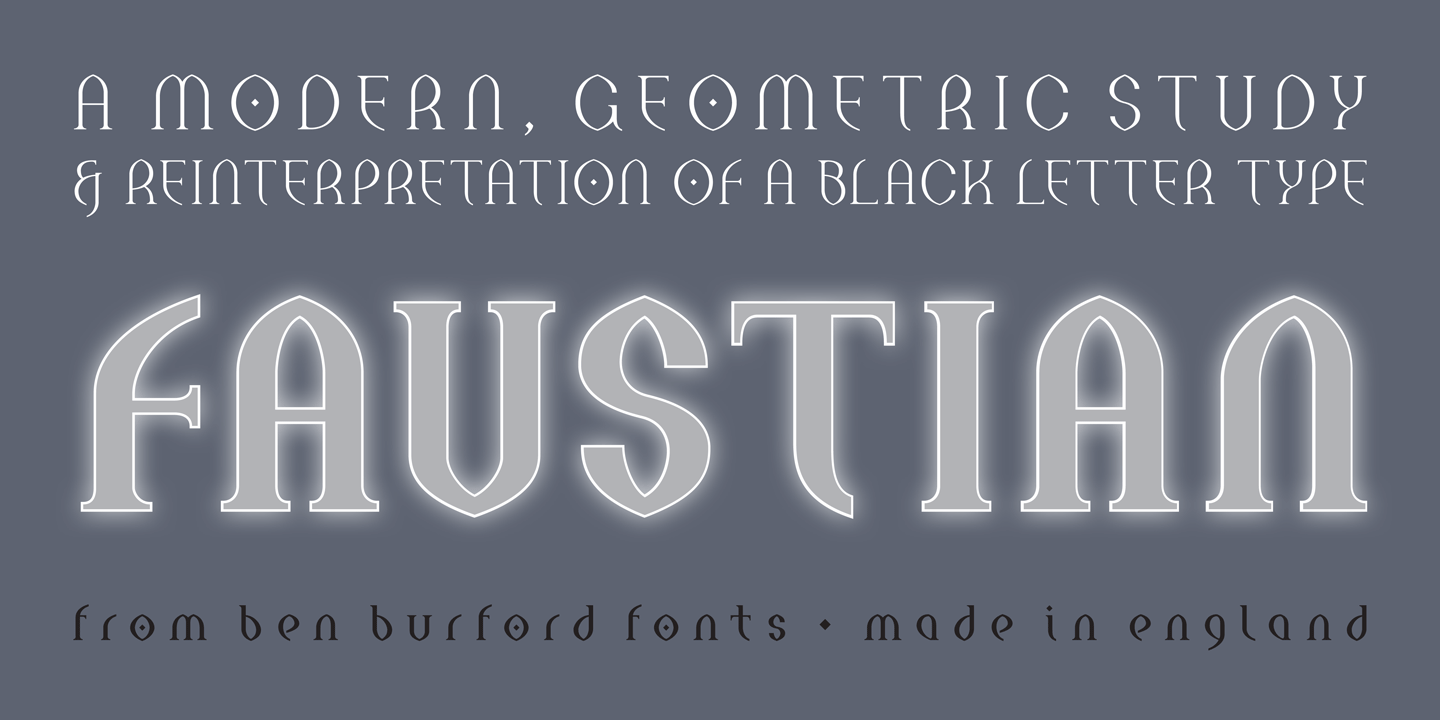
Faustian Font is perfect for gothic literature publications, classical drama theater branding, philosophical society communications, academic medieval studies materials, literary criticism journal layouts, renaissance studies presentations, gothic revival architecture firm graphics, classical mythology educational resources, philosophical debate society signage, and distinguished intellectual pursuit marketing campaigns.
What makes Faustian Font so exciting is its extraordinary ability to embody the profound intellectual ambition and moral complexity that defines humanity's eternal quest for knowledge through dramatically sculpted letterforms that seem forged in the fires of scholarly passion and tempered by the kind of intellectual courage required to pursue ultimate truth regardless of personal cost or conventional limitations. This font captures the essence of intellectual striving and philosophical inquiry, featuring boldly ambitious characters that appear designed to carry the weight of eternal questions and the promise of discovering profound truths that transform human understanding while acknowledging the moral complexities that accompany the pursuit of ultimate knowledge. The dramatically crafted letter shapes create an atmosphere of intellectual gravitas and philosophical authority, making every word feel like it participates in humanity's greatest debates about knowledge, morality, and the price of wisdom that challenges conventional boundaries and comfortable assumptions.
The Faustian Font family includes Light, Regular, Medium, Bold, and Dramatic variations, along with classical symbols and philosophical decorative elements. Each style maintains the font's distinctive intellectual character while offering versatility for different scholarly applications, from contemplative philosophical text to commanding academic headlines that announce breakthrough discoveries and intellectual achievements that advance human understanding.
This profound typeface brings authentic intellectual pursuit aesthetics to contemporary design projects. The Faustian Font Free Download provides designers with an exceptional tool to create memorable brand identities that communicate intellectual depth, scholarly ambition, and philosophical sophistication. Whether you're developing academic institution branding, designing literary publication materials, or creating philosophical society communications, this font delivers unmatched intellectual credibility and scholarly appeal.
The masterfully crafted letterforms in Faustian Font feature dramatic proportions and intellectual weight that mirror the ambitious scope of classical scholarship and the moral complexity that accompanies the pursuit of knowledge that challenges established boundaries while seeking truth that may exact personal costs from those brave enough to pursue it. Each character has been designed to maintain perfect readability while expressing the intellectual courage and philosophical depth that define authentic scholarly inquiry. The font's distinctive personality makes it ideal for applications requiring genuine academic authority and philosophical credibility.
Academic and intellectual professionals appreciate how Faustian Font effortlessly communicates scholarly depth, intellectual ambition, and philosophical sophistication while serving institutions and individuals dedicated to the pursuit of knowledge that advances human understanding while acknowledging the moral responsibilities that accompany intellectual power and the wisdom that comes from recognizing both the possibilities and limitations of human knowledge. The comprehensive character set includes classical symbols, philosophical ornaments, academic decorations, and extensive international language support, ensuring global compatibility while preserving its distinctive Faustian identity. This makes it an invaluable resource for universities, philosophical societies, literary institutions, and any organization seeking typography that embodies the fundamental values of intellectual courage, scholarly integrity, and the kind of philosophical inquiry that asks the deepest questions about human nature, moral responsibility, and the pursuit of knowledge that transforms both individuals and societies through the patient exploration of ideas that challenge conventional wisdom while seeking truth that serves the common good rather than merely satisfying personal ambition or intellectual pride, ensuring that the pursuit of knowledge remains guided by wisdom that understands true learning requires both intellectual rigor and moral humility in the face of ultimate mysteries that continue to inspire human inquiry across generations of scholars who dedicate their lives to advancing understanding while preserving the ethical foundations that prevent knowledge from becoming mere power divorced from moral purpose.